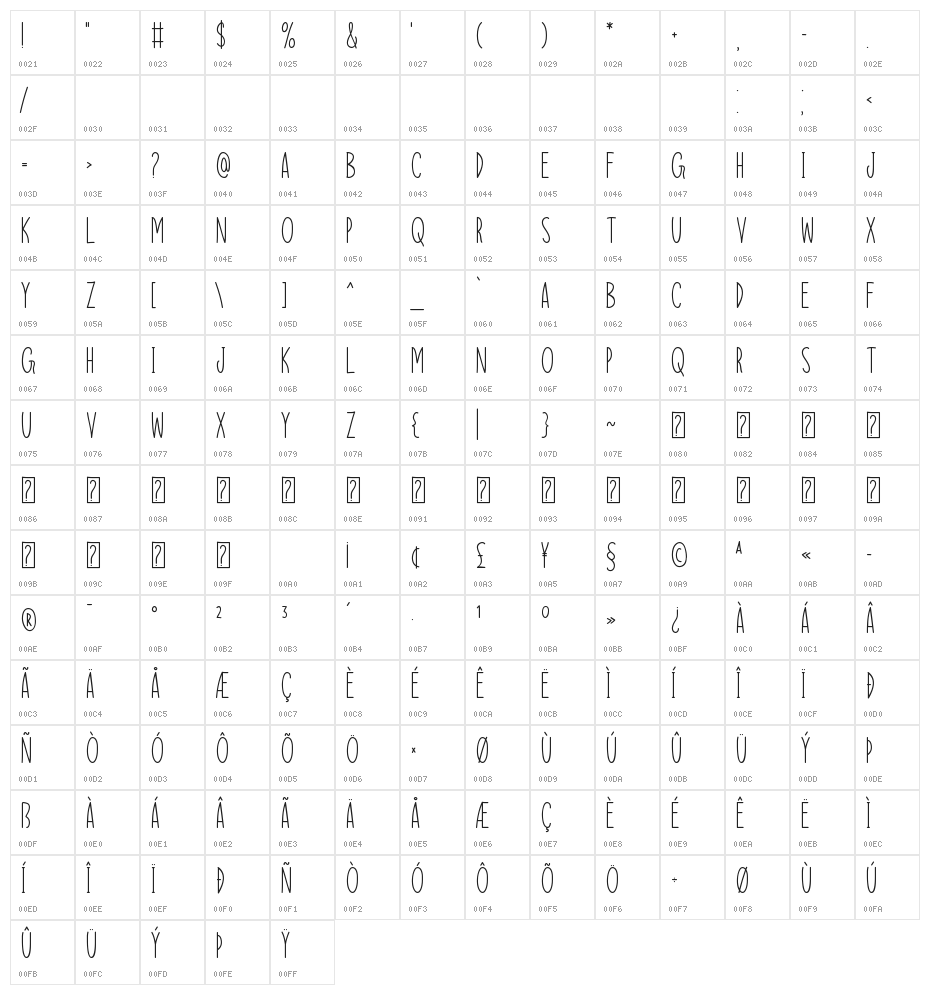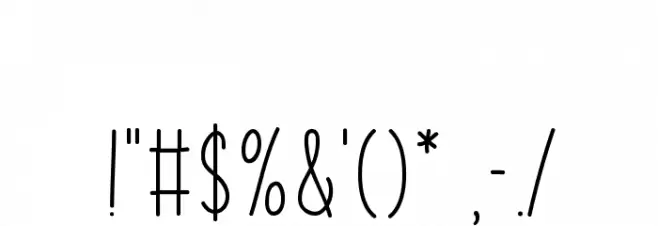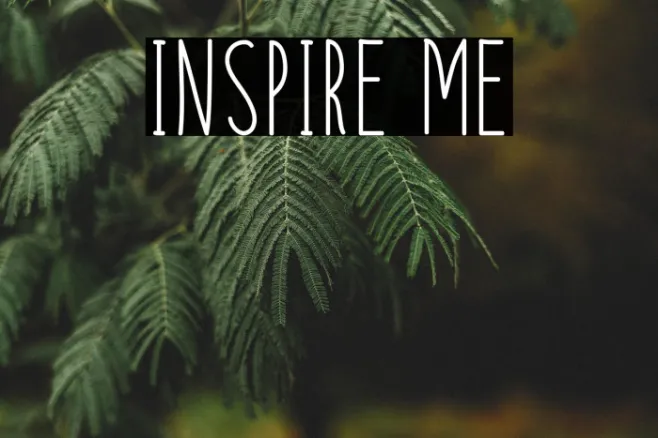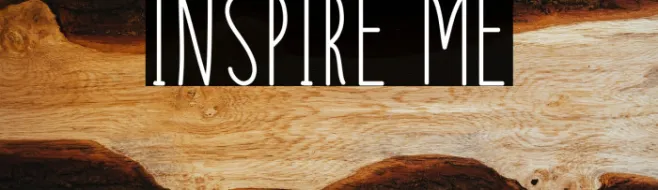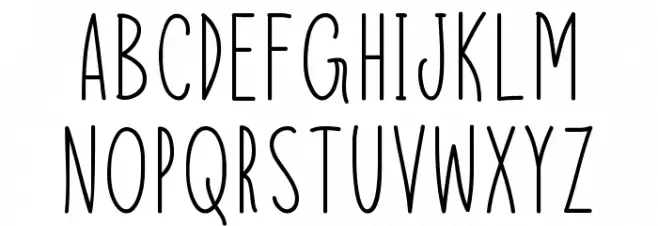
Inspire Me Font
Inspire Me Description
This font features a playful and whimsical design with tall, narrow letters that have a hand-drawn appearance. The strokes are consistent in width, giving it a clean and modern look. The uppercase and lowercase letters maintain a uniform style, with slight variations that add character. The special characters are integrated seamlessly, enhancing its versatility. This font's unique style makes it suitable for creative projects that require a touch of personality and charm.